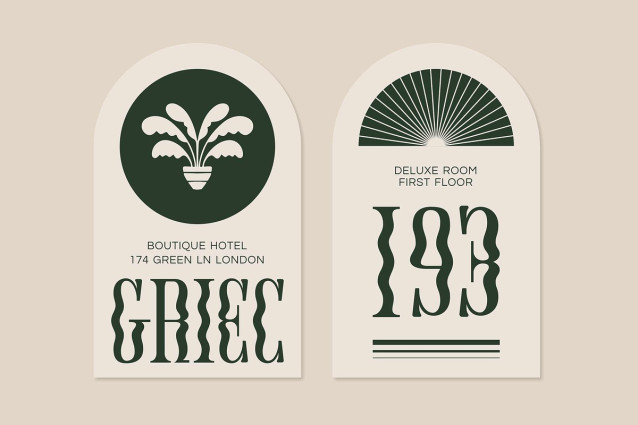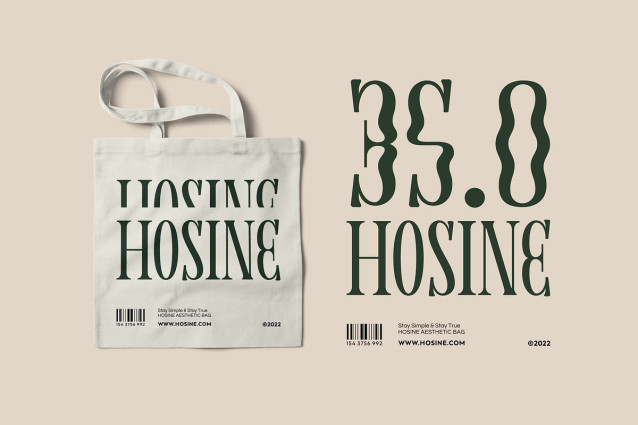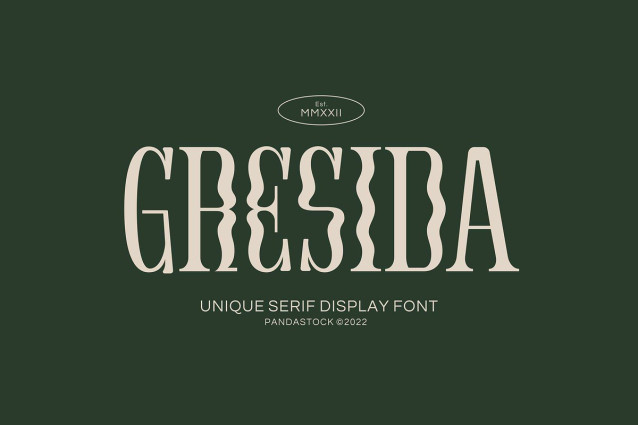
Gresida Font
Gresida Font is a stunning and elegant serif font that masterfully blends timeless sophistication with a unique, artistic flair. This font embodies a bold blend of modern eclecticism and vintage flair, designed playful distortion of vertical forms letters stretch and contract with a wavy rhythm, creating an aesthetic that feels both artisanal and avant garde.
Each glyph is crafted with intentional irregularity, delivering a handmade sophistication that stands out in boutique identities, posters, signage, luxury packaging, wedding invitations, sophisticated social media graphics, or hospitality branding. Perfect for projects aiming to feel expressive and distinctively memorable.